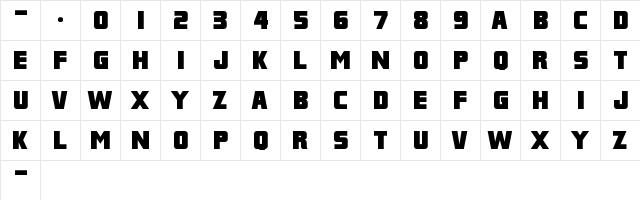
Franklin M54 Regular
Design Context for Franklin M54 Typeface
Franklin M54 is a composed and adaptable typeface that performs quietly and consistently across a wide range of design contexts.